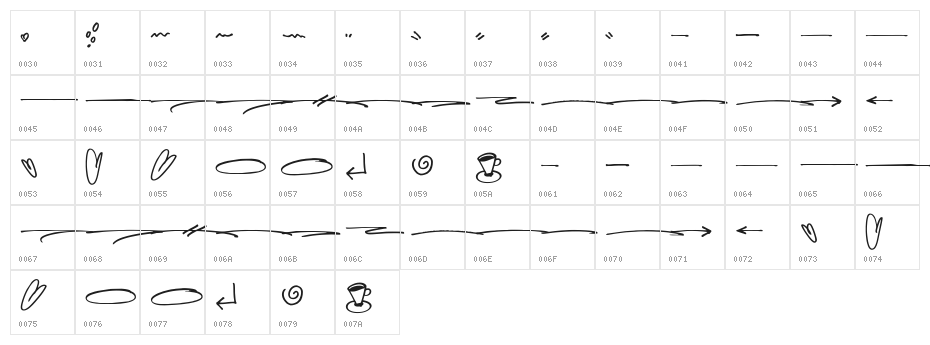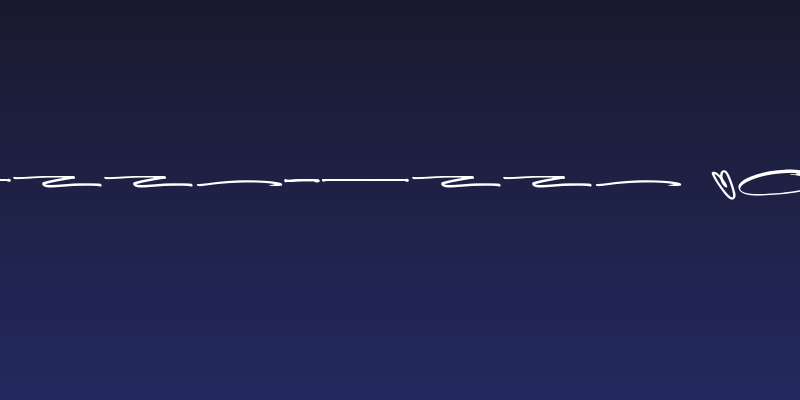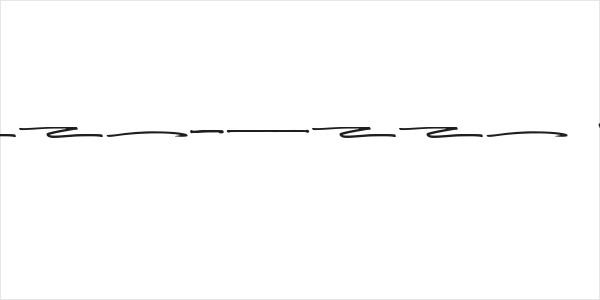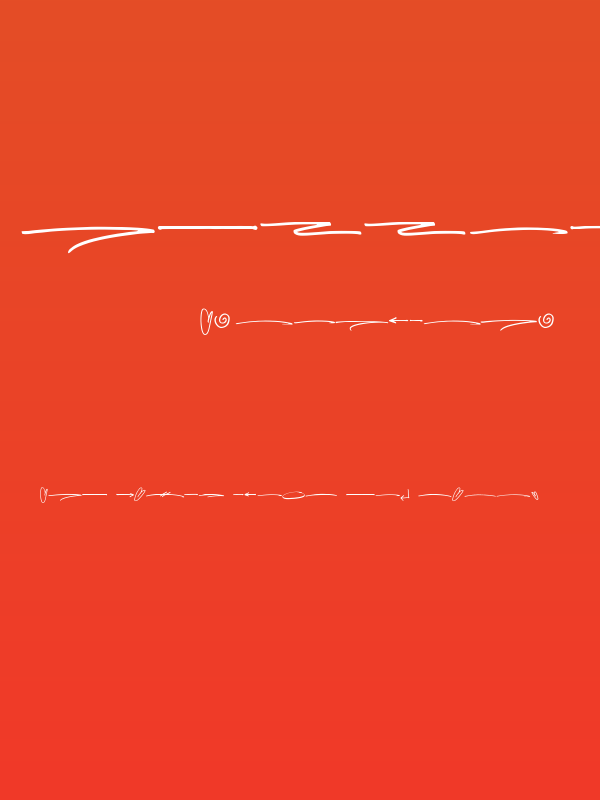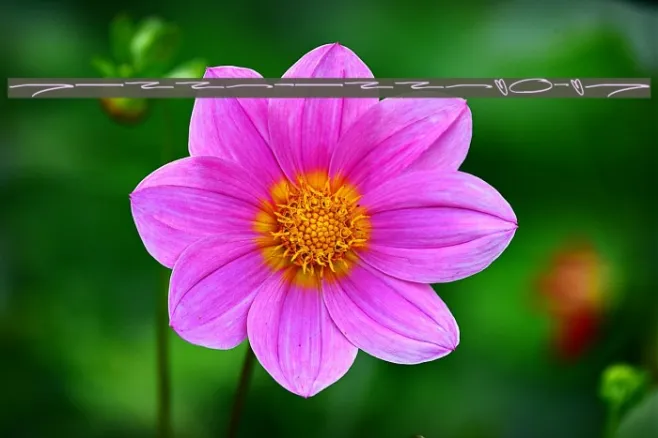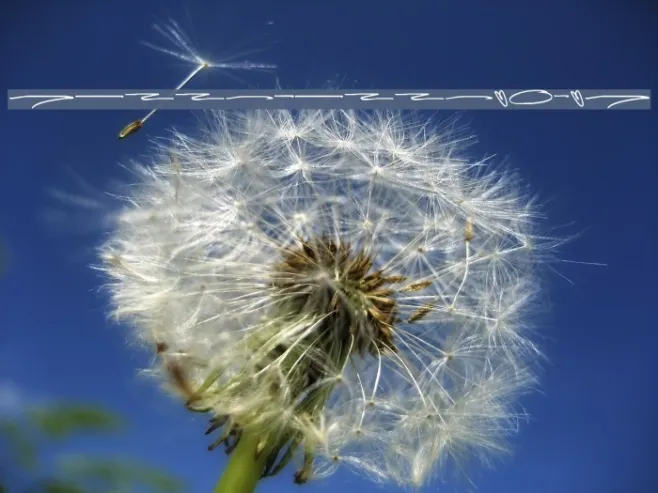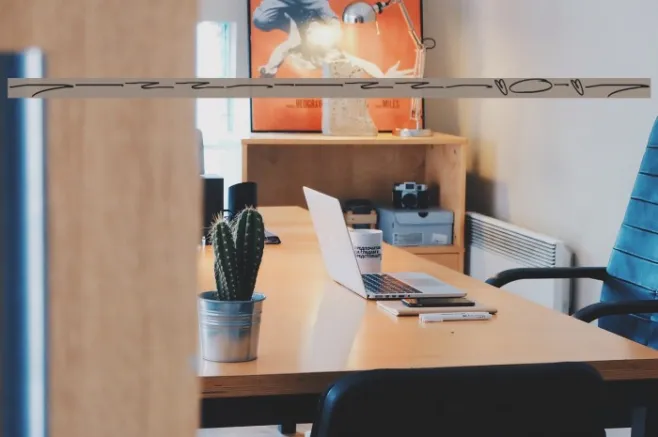
Hellobello Swash Font
Hellobello Swash Description
This design features a whimsical and decorative style, characterized by its playful swashes and flourishes. The elements are reminiscent of hand-drawn doodles, with a variety of lines and shapes that create a lively and dynamic appearance. The strokes vary in thickness, adding to the overall charm and artistic flair. This style is perfect for adding a touch of creativity and uniqueness to any project, making it stand out with its distinctive and imaginative elements.
| Use Case | Logos, Decorative elements |
| Proposed Projects | Ideal for greeting cards, invitations, scrapbooking, and creative branding projects. |